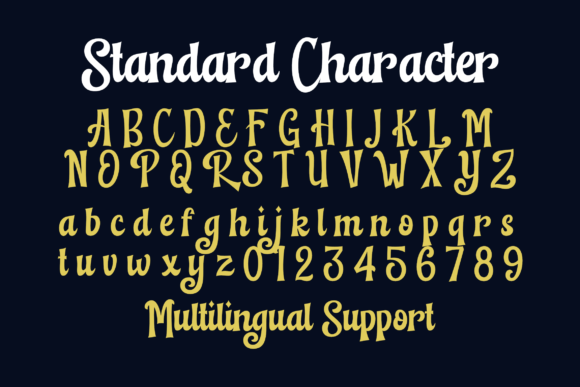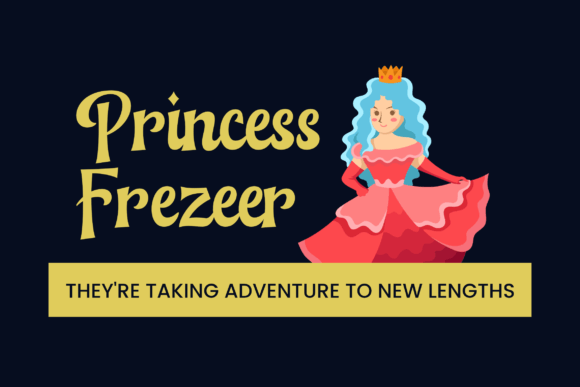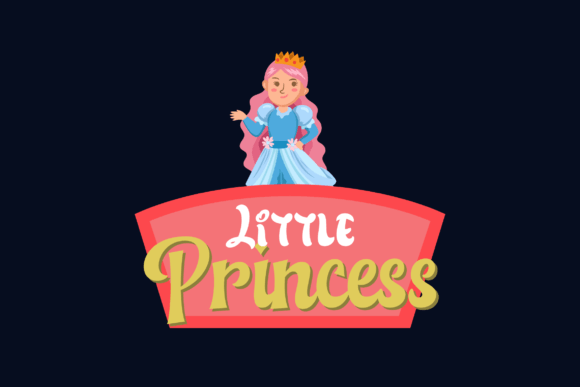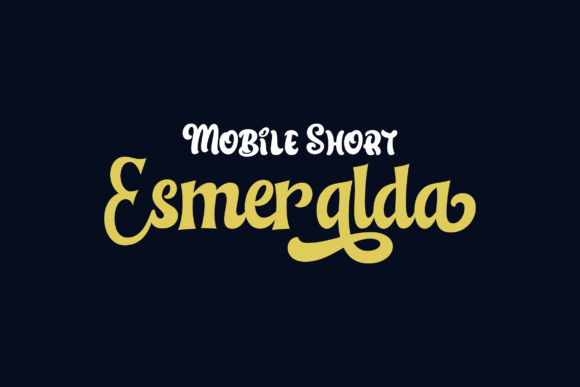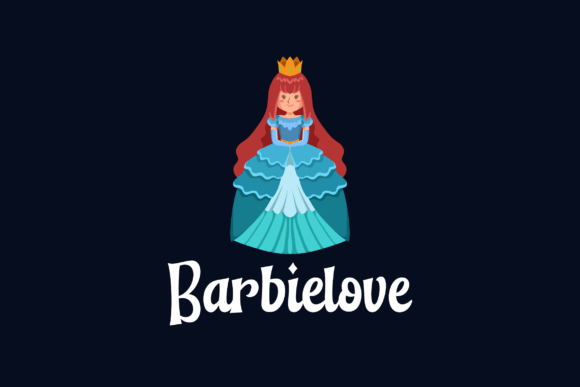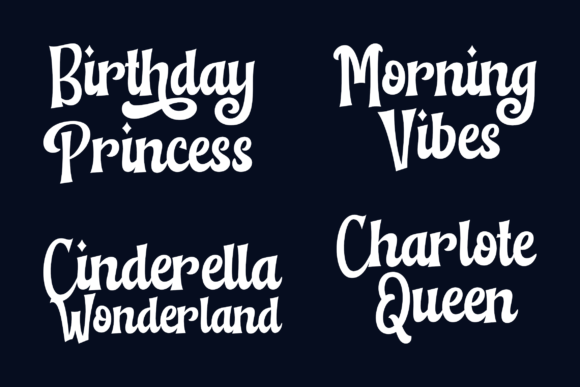
Introduction to Rapunled Font
Have you ever been working on a creative project and wished you had the perfect font to match your vision? I’m sure we’ve all been there – scrolling through font libraries, searching for that one special design resource that will take our project to the next level. For me, that moment came when I stumbled upon the enchanting Rapunled Font. Inspired by the beloved Princess Rapunzel movies, this script font is a treasure trove of creativity and versatility.
What sets Rapunled Font apart is its unique blend of high-quality design and accessibility. With a wide range of alternative fonts and a transparent background, this font is a game-changer for designers looking to add a touch of magic to their projects. And the best part? You can access all of its glyphs and swashes with ease, thanks to its PUA encoding. Whether you’re working on a free download project or a commercial design, Rapunled Font is an invaluable resource that will elevate your work to new heights.
About Rapunled Font
With its intricate details and elegant lines, Rapunled Font is the perfect choice for designers looking to add a touch of whimsy and sophistication to their work. Whether you’re creating a logo, a social media graphic, or a wedding invitation, this font is sure to impress. So why settle for a generic font when you can have a high-quality, one-of-a-kind design resource like Rapunled Font? Download it now and unlock a world of creative possibilities!
Key Features of Rapunled Font
- High-quality design for creative projects, ideal as a design resource
- Comes in a single weight, suitable for a wide range of applications
- Perfect for designers seeking a unique and elegant font for their next project
Honest Review: Rapunled Font
As a designer, I’m always on the lookout for high-quality fonts that can elevate my creative projects. Recently, I stumbled upon the Rapunled Font, and I’m excited to share my thoughts on it.
One thing that stands out about the Rapunled Font is its unique and whimsical design. The font is perfect for adding a touch of magic to your designs. The transparent background makes it easy to use in a variety of creative projects.
Here are some things that work well with the Rapunled Font:
- ✨ Unique and whimsical style that adds a touch of magic to designs
- ✨ Transparent background makes it easy to use in a variety of designs
While the Rapunled Font is a great addition to any designer’s toolkit, there are a few limitations to consider:
- ⚠️ Limited character set, which may make it difficult to use for longer texts
- ⚠️ May not be suitable for formal or professional designs
Overall, I’m impressed with the Rapunled Font. It’s a great design resource for designers who want to add a touch of whimsy to their creative projects. With its high-quality design and transparent background, it’s a great choice for designers on a budget.
Rapunled Font
The Rapunled Font is a high-quality, free download design resource ideal for creative projects. With a transparent background, it offers flexibility and versatility in various design applications.
Tips for Getting the Most Out of Rapunled Font
To get the most out of the Rapunled Font, experiment with different font sizes, colors, and styles to achieve the desired look for your creative project.
The Rapunled Font is commonly used for:
- Brand logos and identities
- Infographics and data visualizations
- Print and digital advertising
Alternatives to Rapunled Font
Great Vibes Font is a high-quality, elegant script font perfect for creative projects that require a touch of sophistication. It’s available for free download and is ideal for designs that need a transparent background. When to use: Wedding invitations, luxury branding, and elegant packaging.